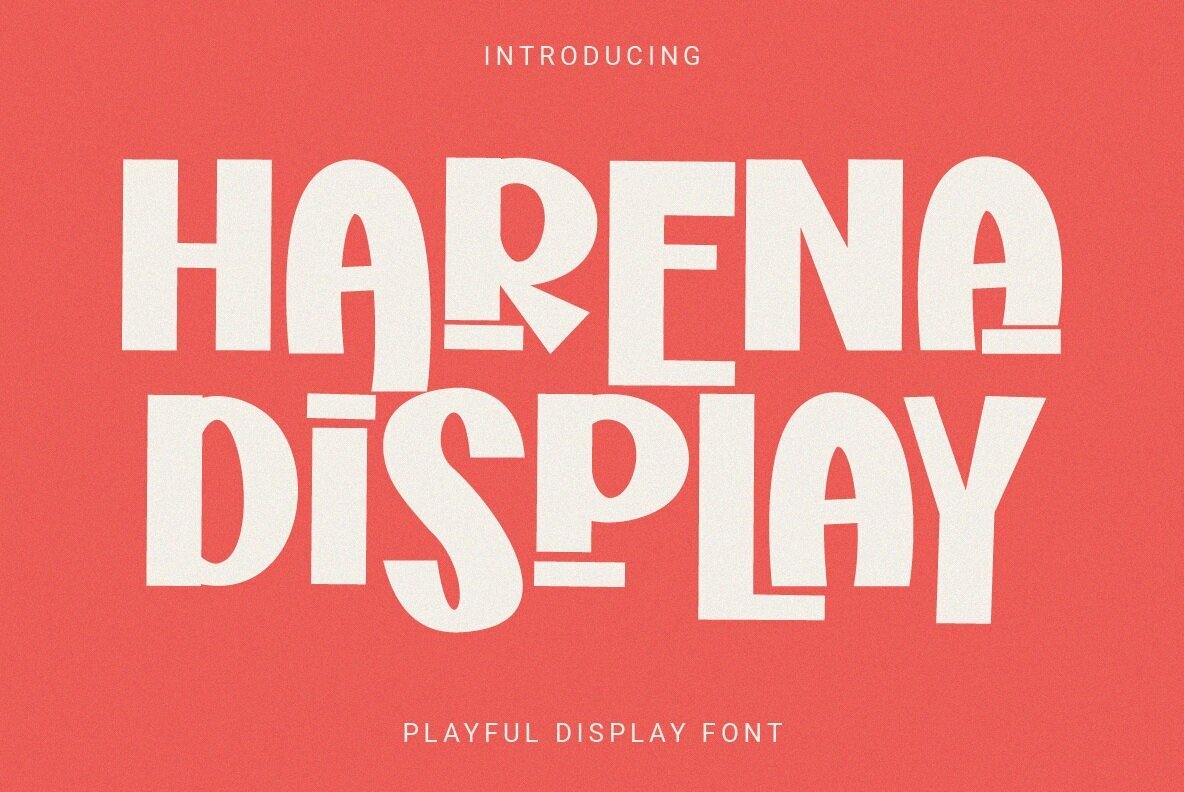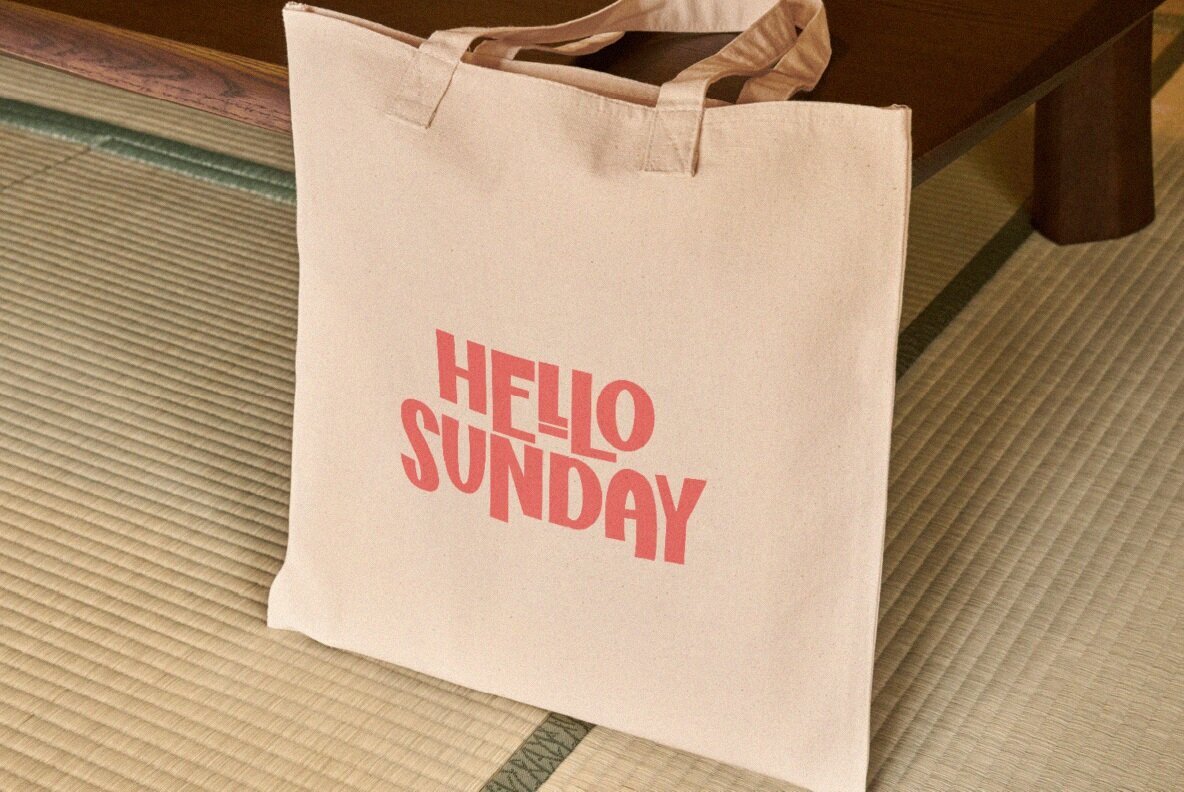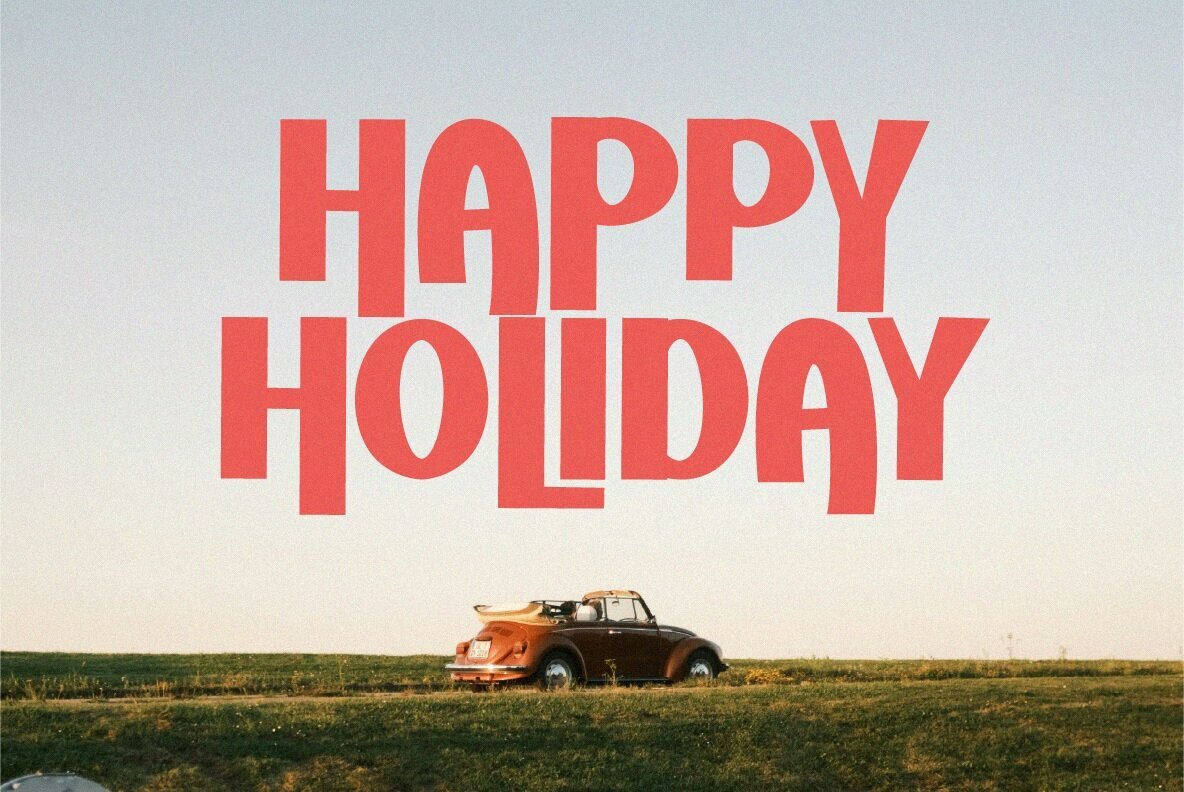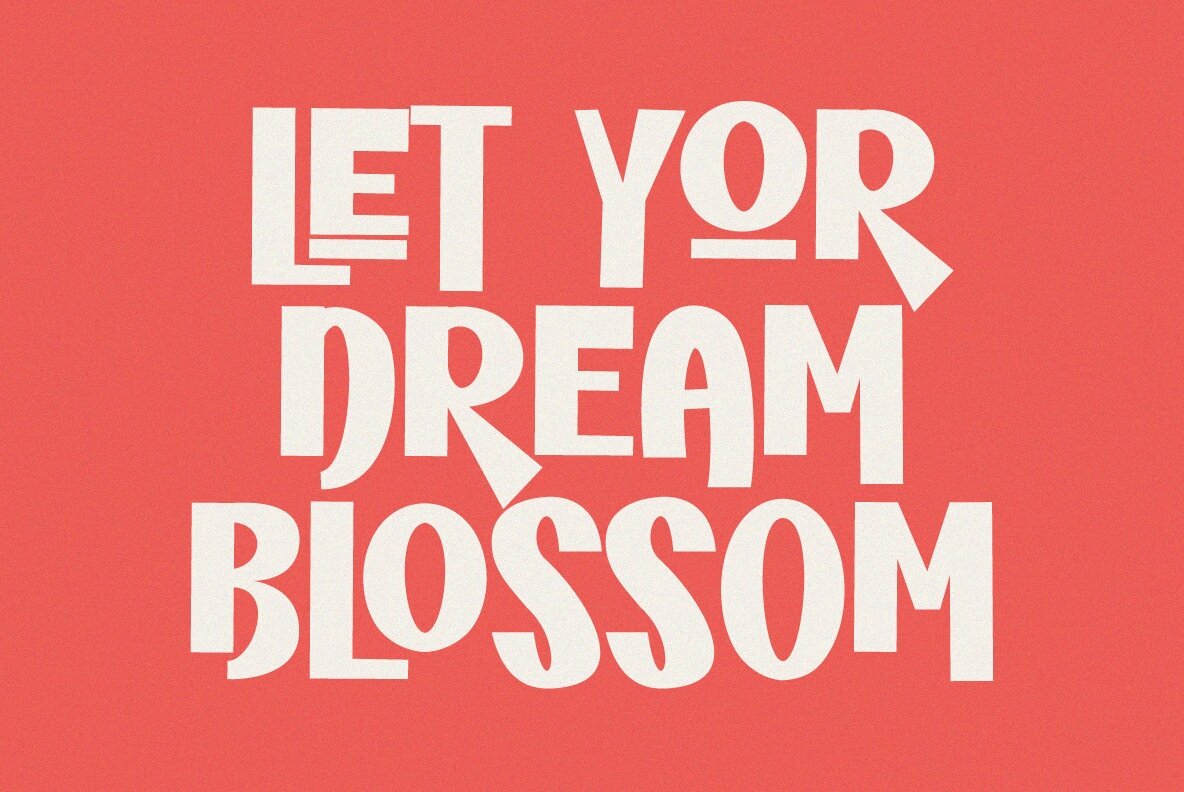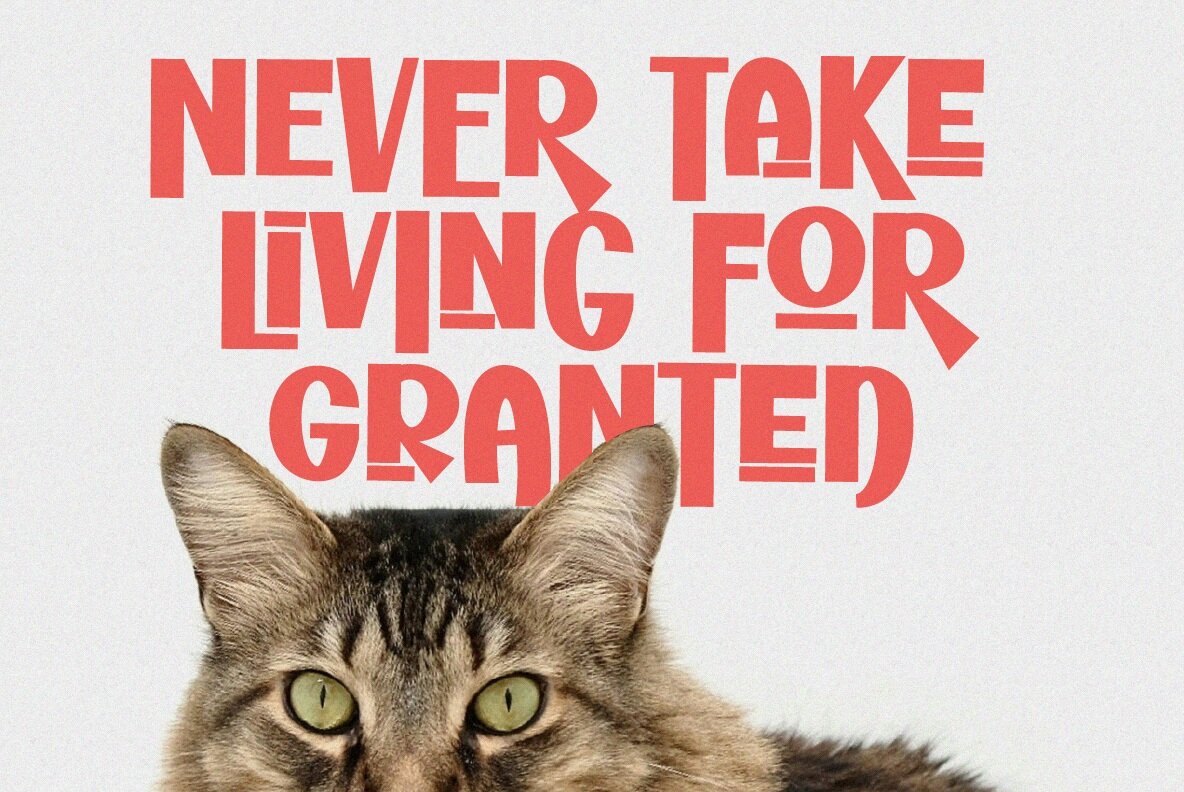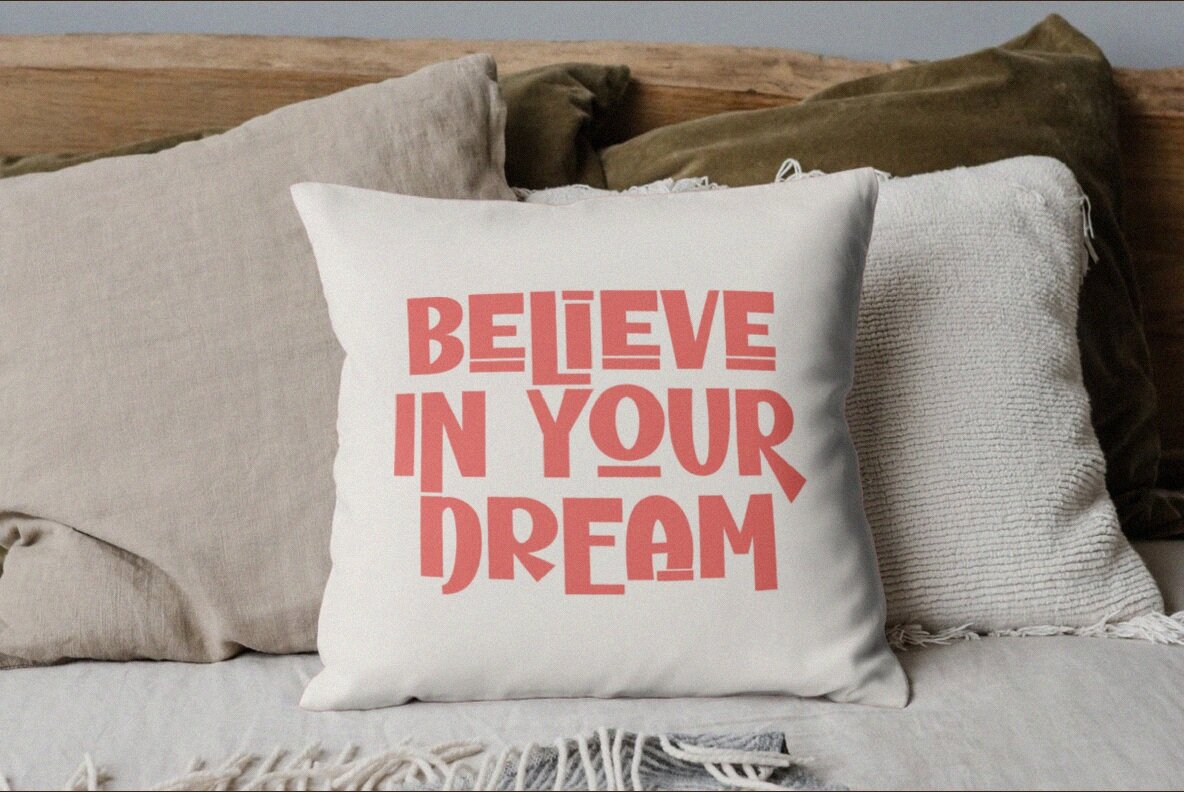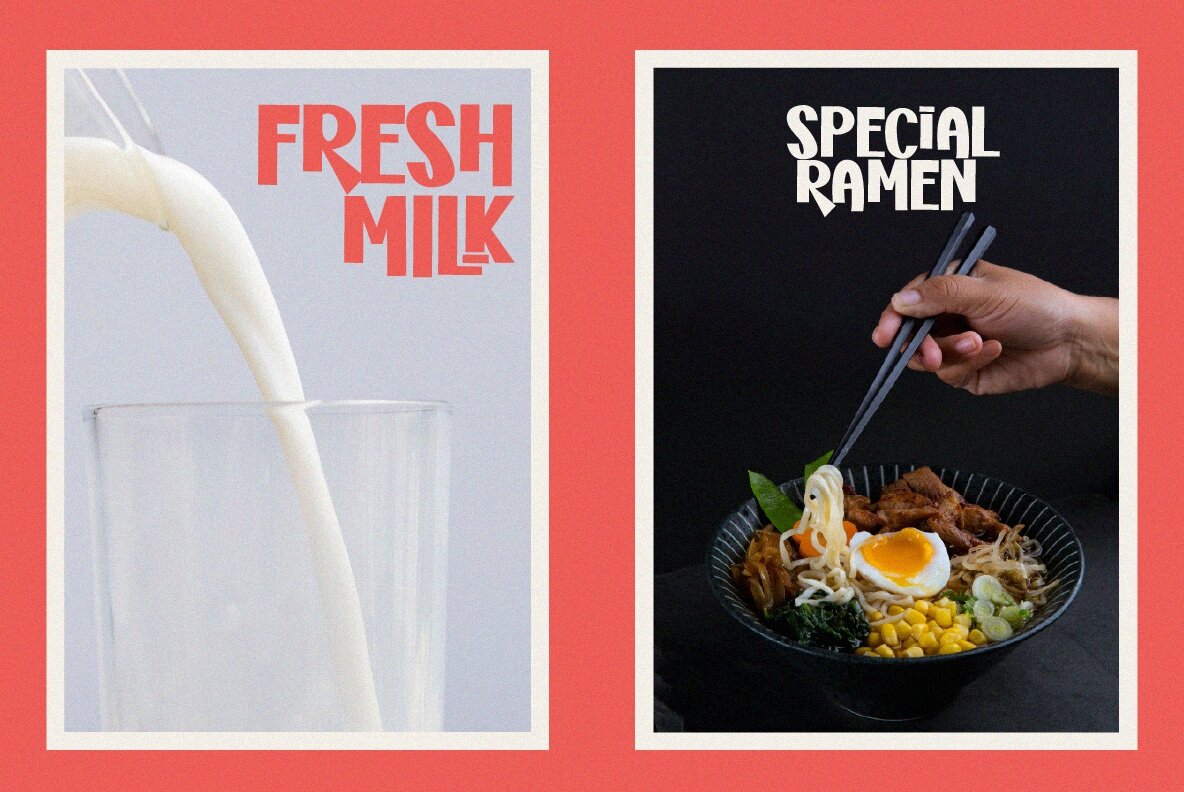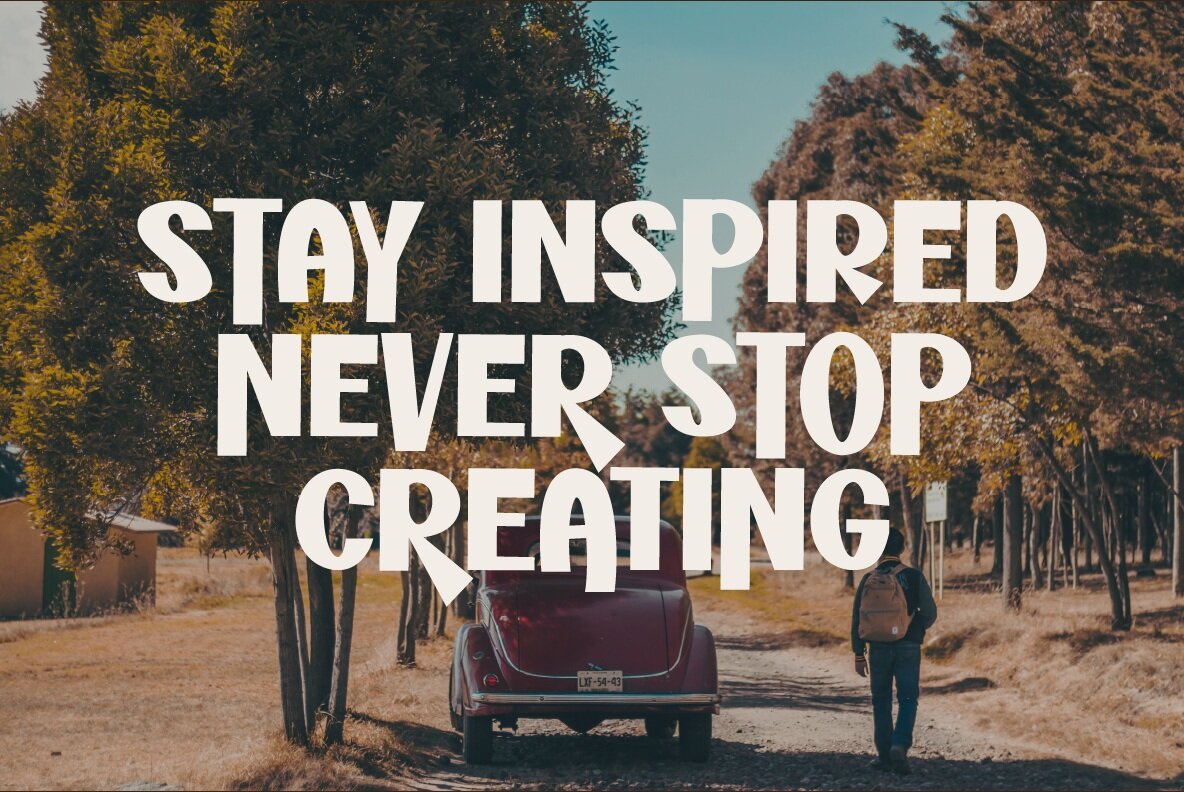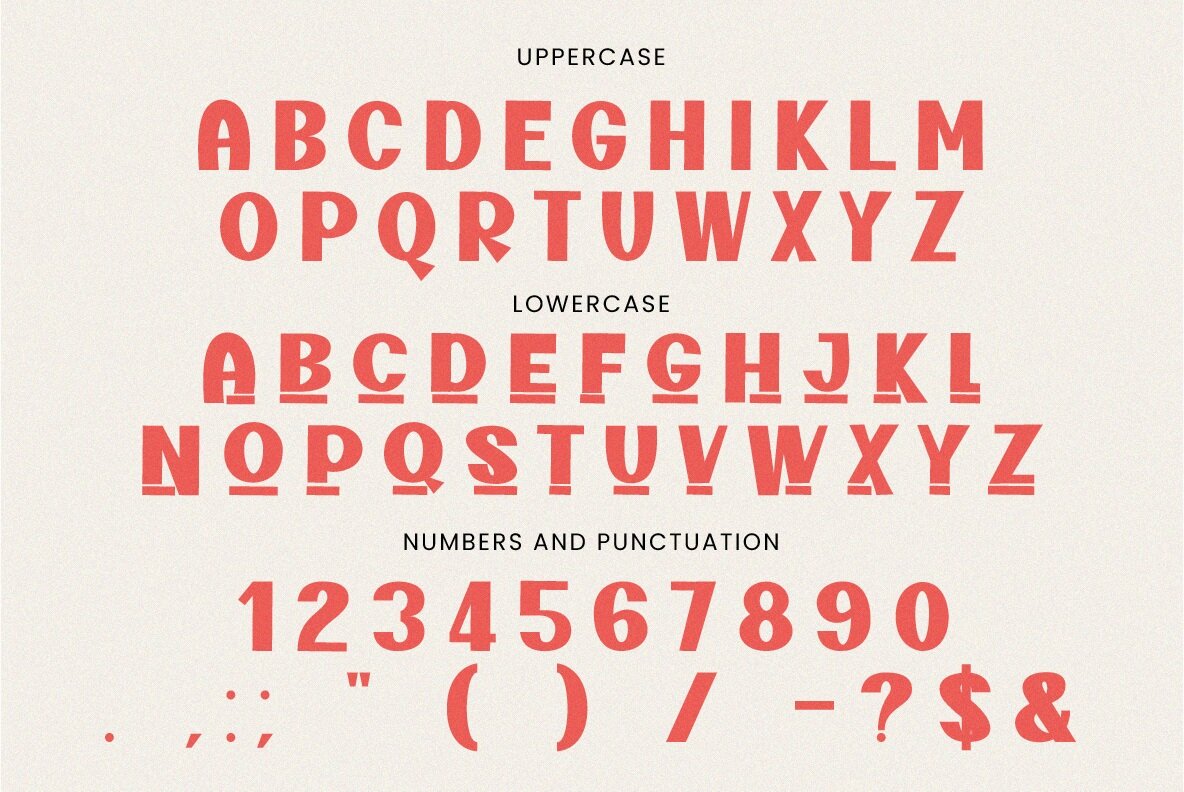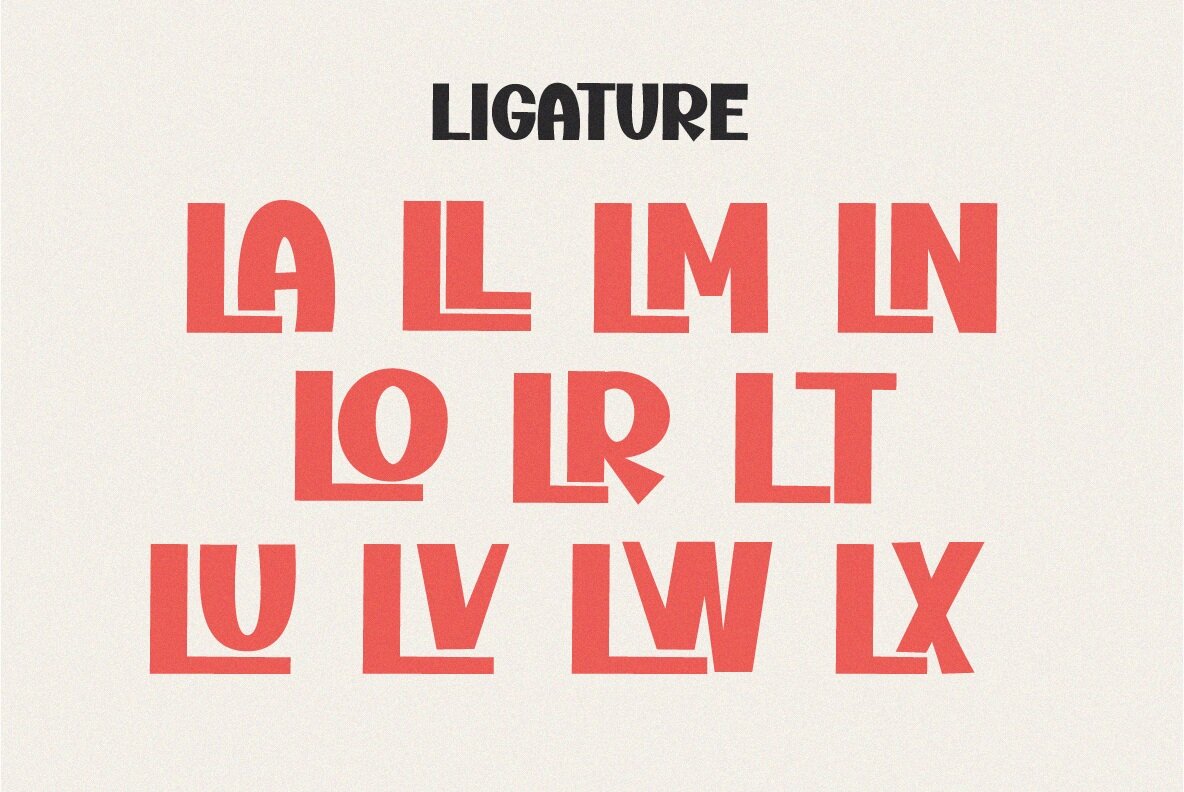
Harena Font
Harena
Unleash your creativity with Harena, a playful and trendy display font that brings a fresh, vibrant energy to any project. Whether you’re crafting a logo, branding materials, invitations, or eye-catching social media posts, Harena delivers just the right amount of flair to make your designs pop. With its unique and cheerful style, Harena adds a dash of fun to your work, ensuring it stands out in any context. Perfect for both personal and professional use, this font is your go-to choice for creating lively, memorable designs that captivate your audience.